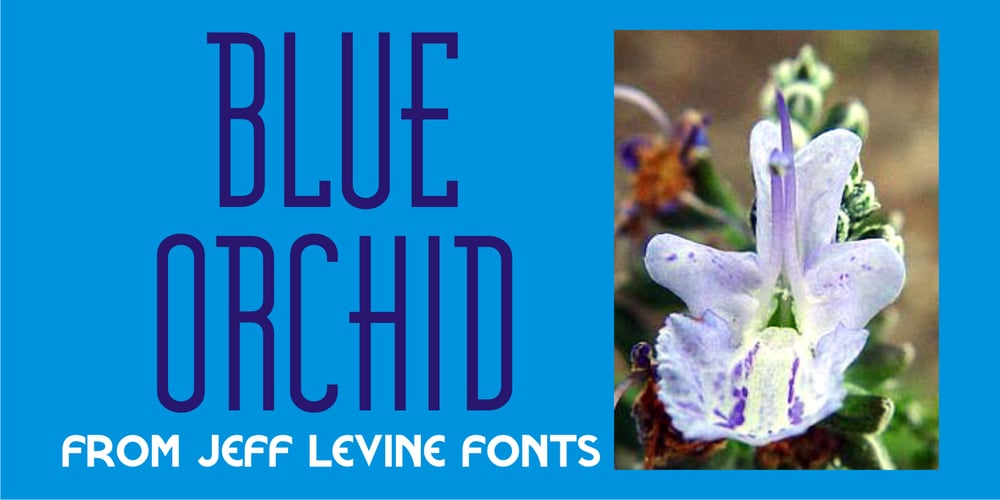
Blue Orchid JNL Font Family was designed by Jeff Levine and published by Jeff Levine. Blue Orchid JNL contains 1 styles and family package options. A piece of 1940s sheet music for the song “Blue Orchids” was the inspiration for both the type design (based on the hand lettered title) as well as the font’s name.